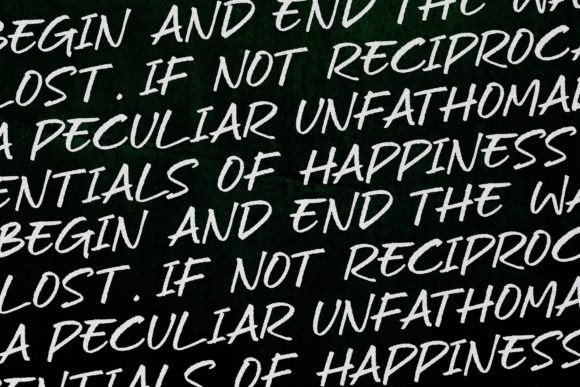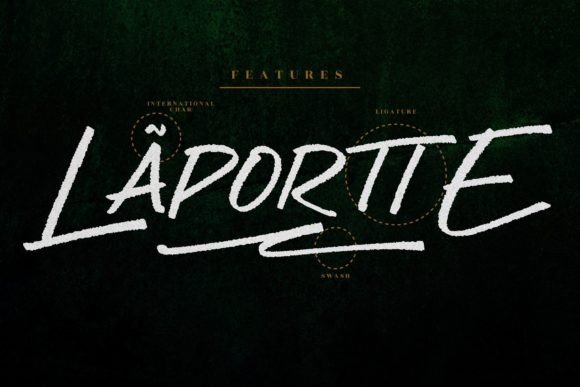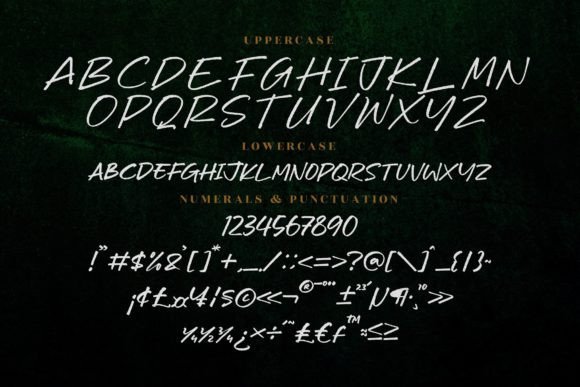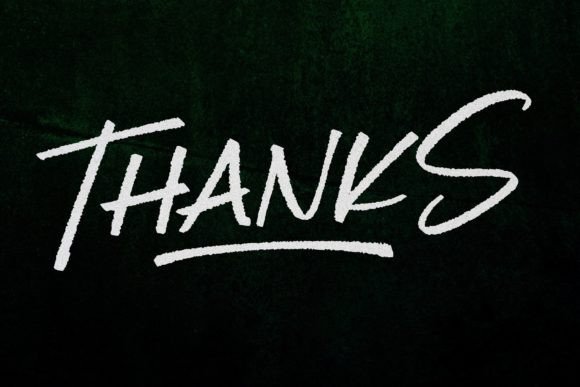
About Lokotre Font
Lokotre is a handwritten display font suitable for any projects such as logos, branding projects, homeware designs, product packaging, mugs, quotes, posters, shopping bags, T-shirts, book covers, name cards, invitation cards, greeting cards, labels, photography, watermarks, special events, and all your other lovely projects that need a beautiful script taste.